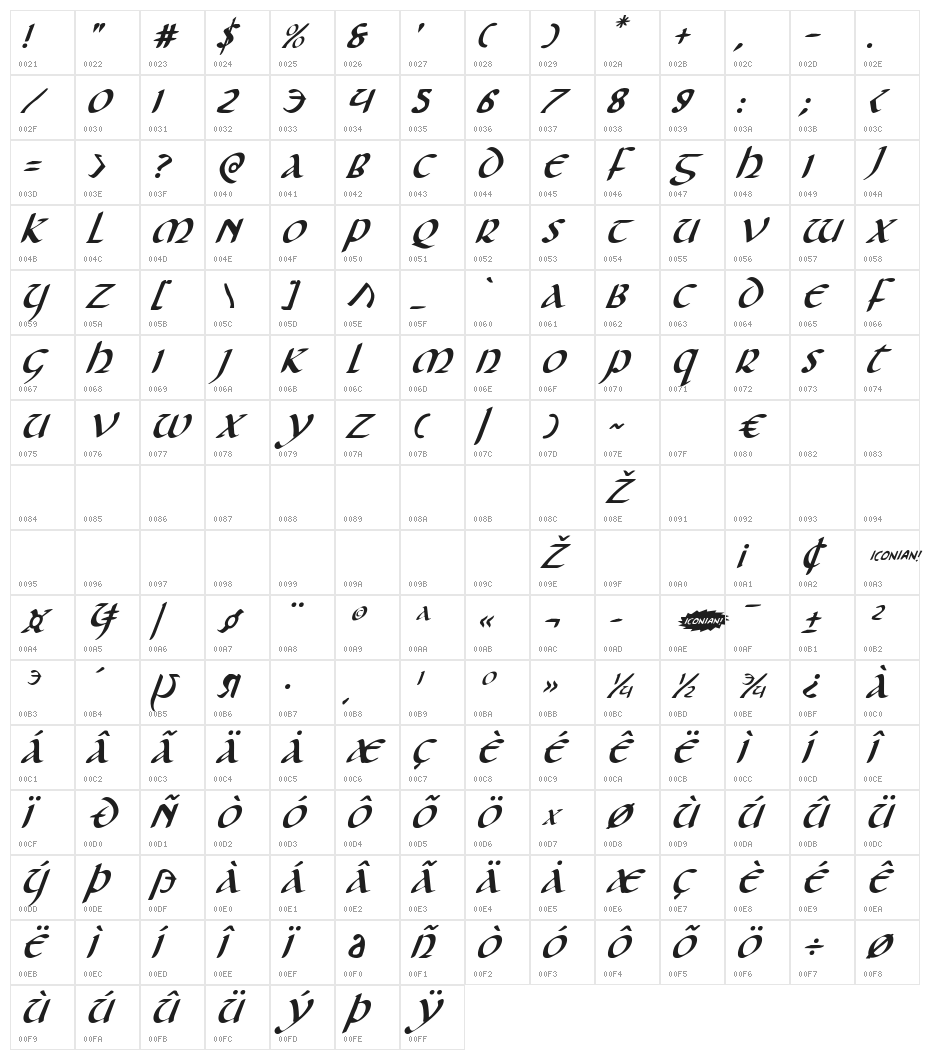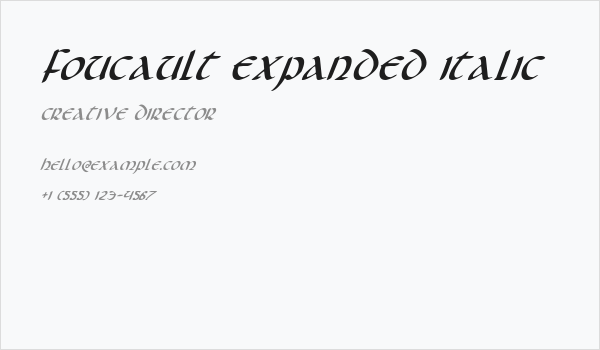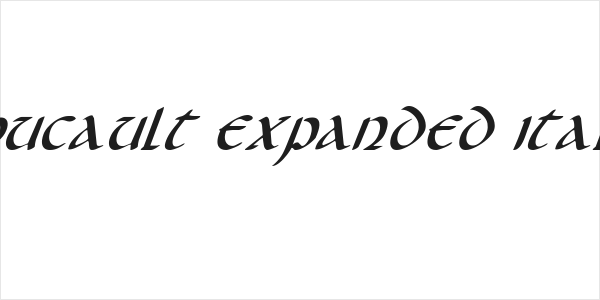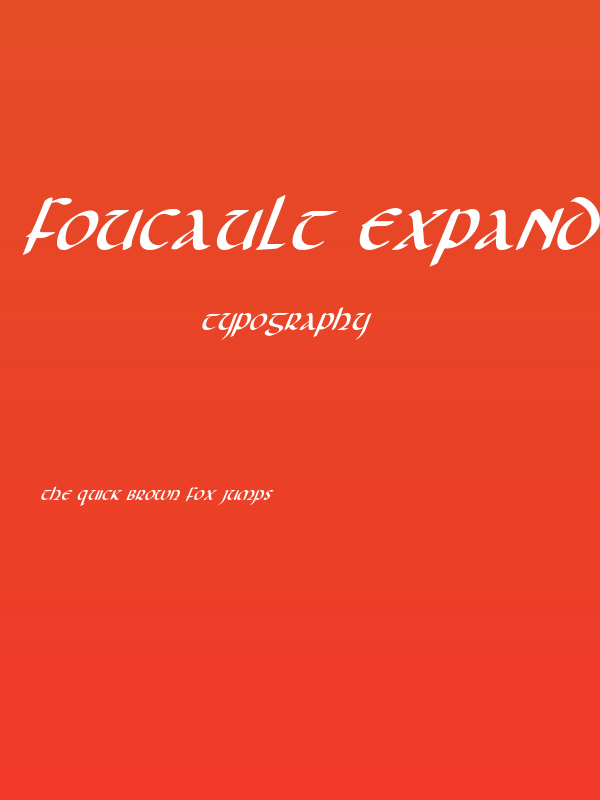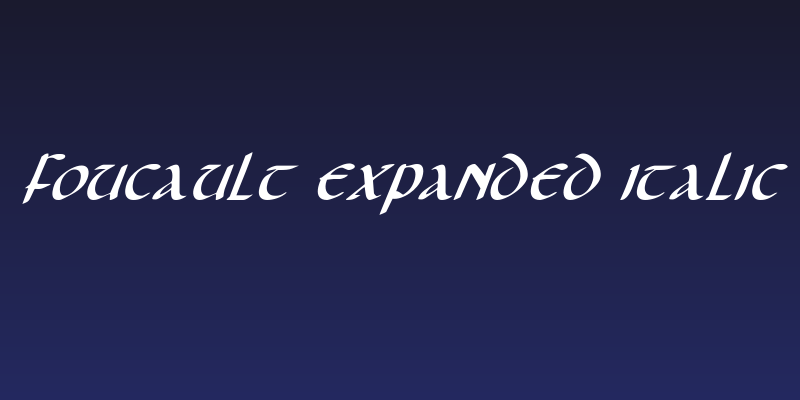
Foucault Expanded Italic Font
Foucault Expanded Italic Description
This font features a dynamic and flowing style with an italic slant, giving it a sense of movement and elegance. The characters are expanded, providing a wide appearance that enhances readability while maintaining a decorative flair. The strokes are bold and confident, with a medium contrast between thick and thin lines, adding to its dramatic presence. The font's design is reminiscent of calligraphic scripts, making it suitable for projects that require a touch of sophistication and artistic expression.
Use CaseHeadlines, Logos, Invitations
Proposed ProjectsIdeal for wedding invitations, elegant branding, artistic posters, and decorative headings.